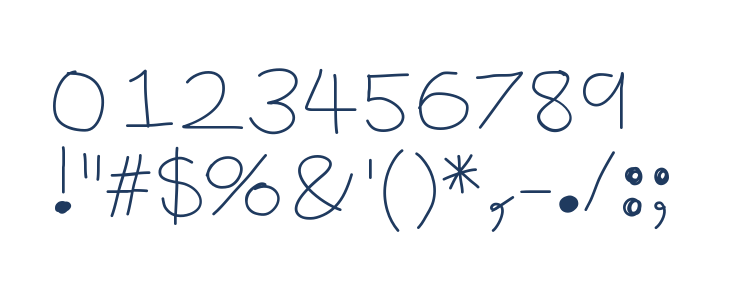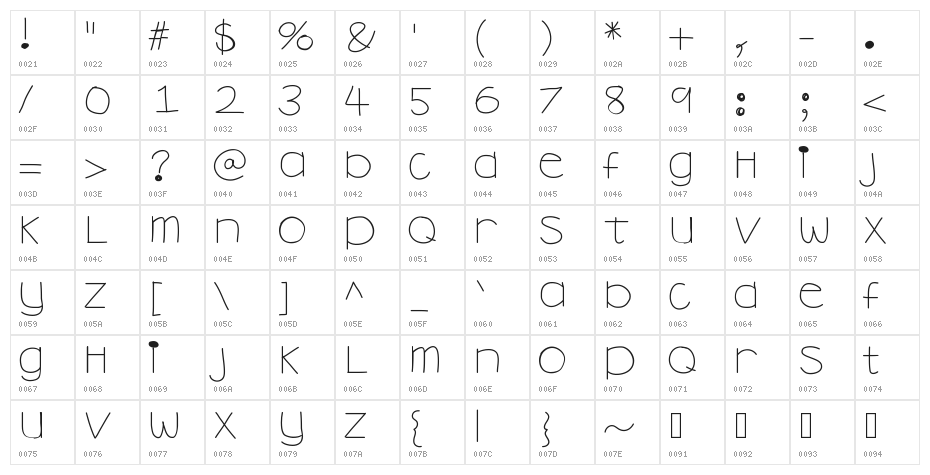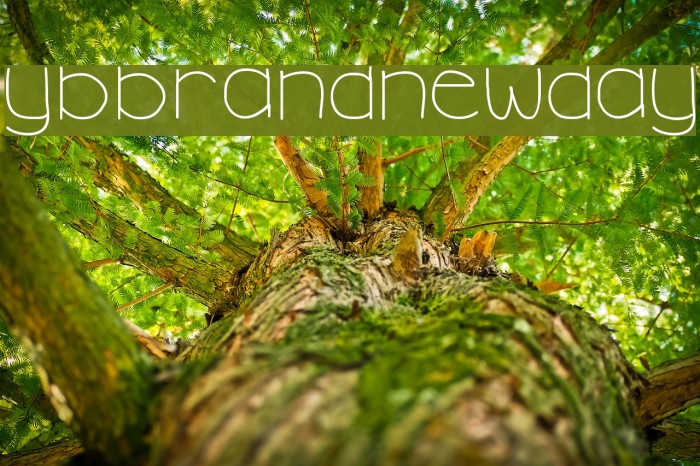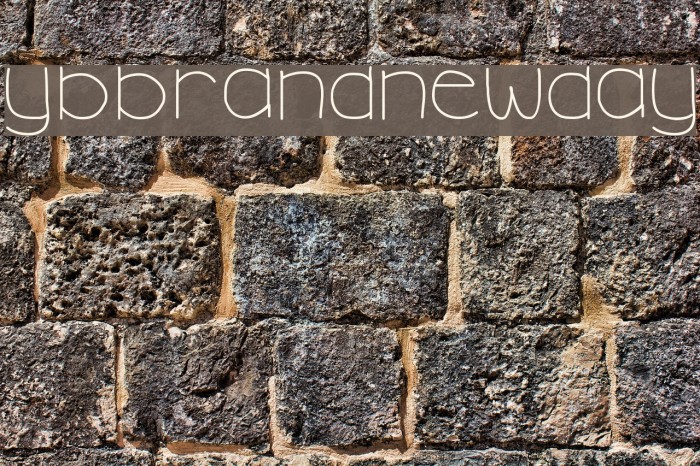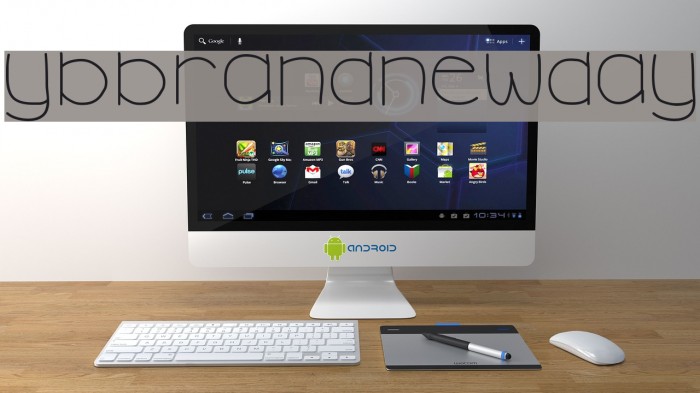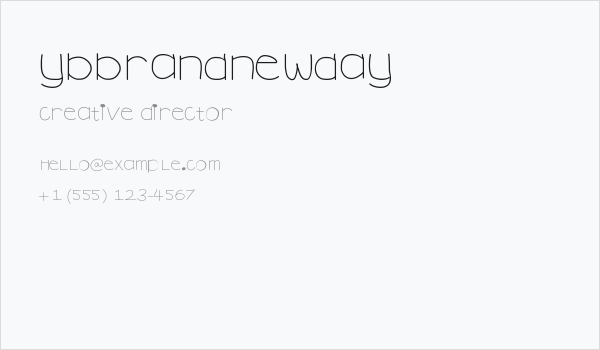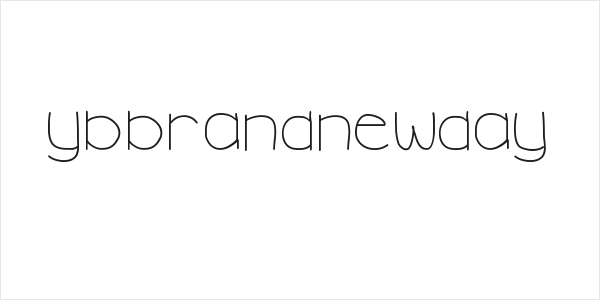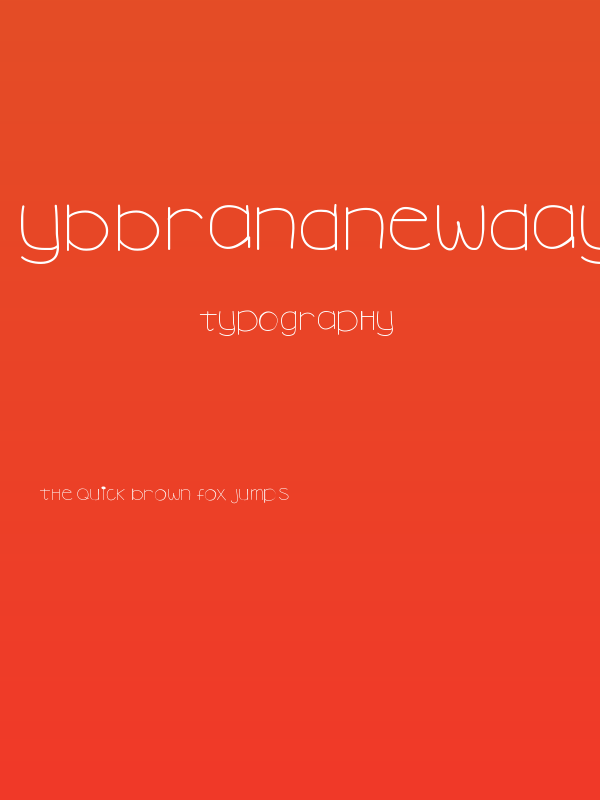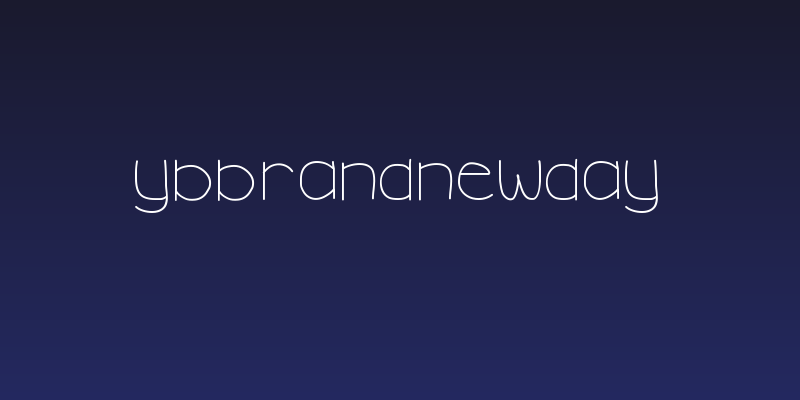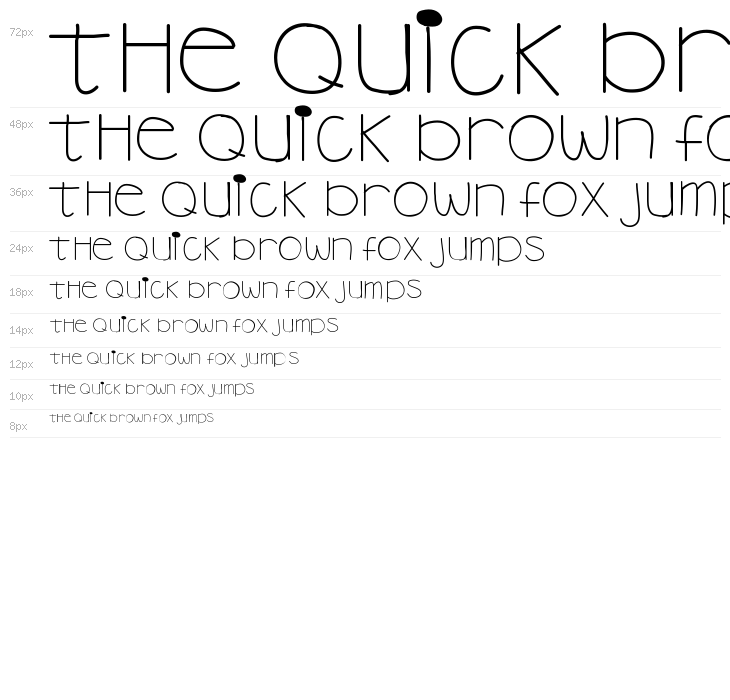
YBBrandNewDay Font
YBBrandNewDay Description
This font features a playful and whimsical design, characterized by its rounded and slightly irregular letterforms. The strokes are thin and consistent, giving it a light and airy feel. The font maintains a casual and friendly appearance, with unique elements such as the dot on the lowercase 'i' and 'j' being slightly larger and more pronounced. The overall design is clean and modern, making it suitable for a variety of creative projects. The numerals and special characters are designed to match the playful aesthetic, ensuring a cohesive look across all text elements.